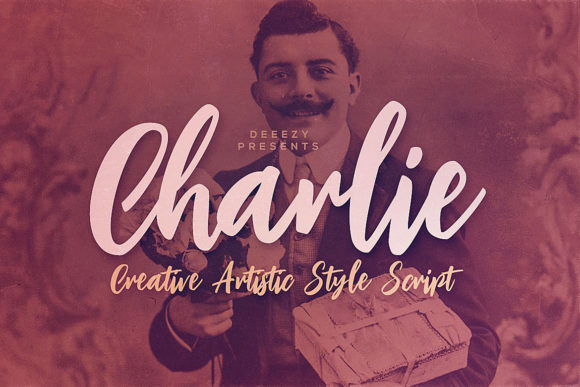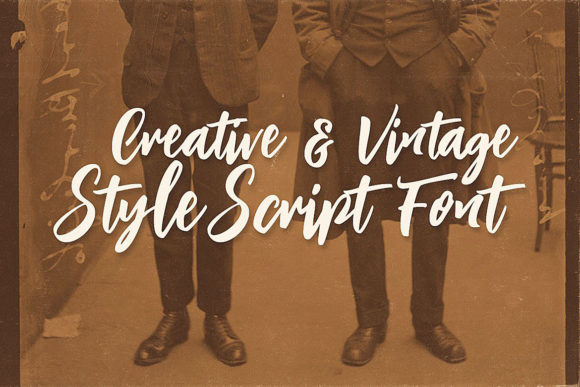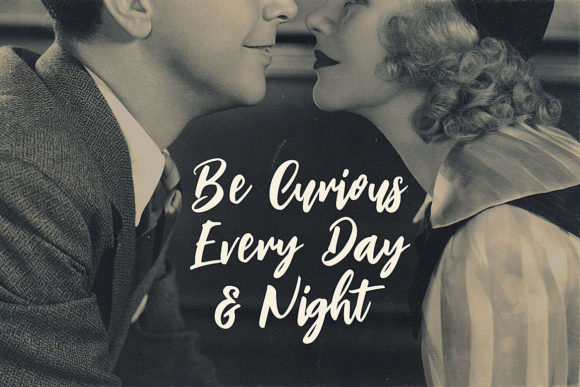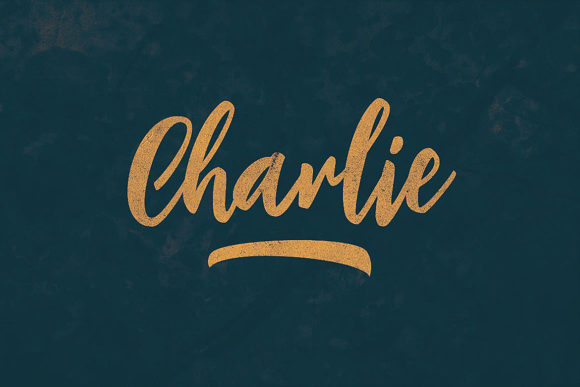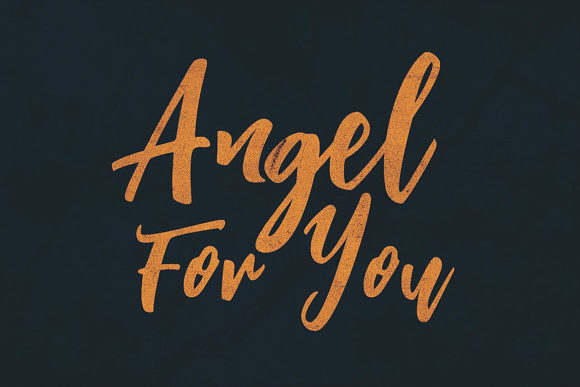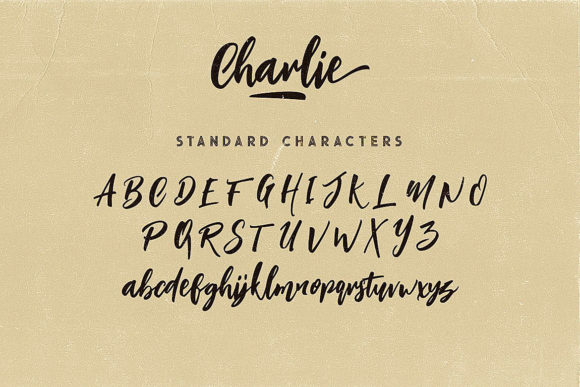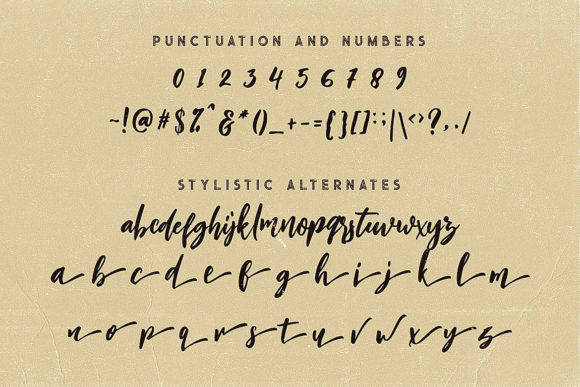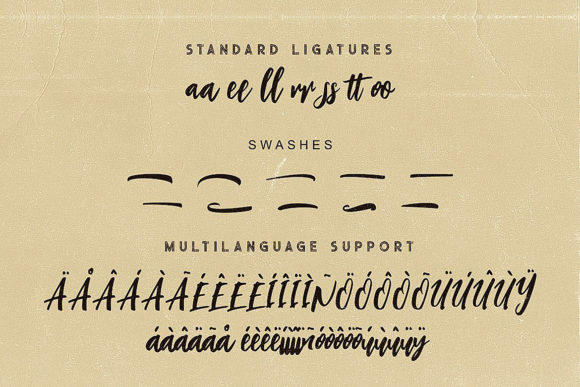
HomeScript FontsCharlie Font Script Fonts Charlie Font FacebookXPinterestWhatsApp Charlie Font Poster 2 Charlie Font Poster 3 Charlie Font Poster 4 Charlie Font Poster 5 Charlie Font Poster 6 Charlie Font Poster 7 Charlie Font Poster 8 About Charlie Font Artistic and handwritten, Charlie will effortlessly add a splash of authenticity to your next design project. DOWNLOAD NOW People also explored Drix 78 Font Leftover Crayon Drak Graffiti Font Silent Sunshine Font Ironbridge Laskar Font Justine Garden Font Love You Angel Font Cheesy Honey Font 303 0 TagsCharlie Font Previous articleWarmheart FontNext articleFositif Font LEAVE A REPLY Cancel reply Comment: Please enter your comment! Name:* Please enter your name here Email:* You have entered an incorrect email address! Please enter your email address here Website: Save my name, email, and website in this browser for the next time I comment. Personal Use Free Masker Area Personal Use Free Read more about this font JVNE Smoothdron Personal Use Free Read more about this font Sunflower Personal Use Free Read more about this font Hanifah Personal Use Free Read more about this font BLOG Fonts That Capture the Spirit of New York City New York City is more than just a place—it’s an experience, a rhythm, a visual language... Free vs Paid Fonts: Why Investing in Premium Fonts Is Worth It To increase your work productivity, choose the most readable fonts. How to Install and Use Fonts on Windows, macOS, and Web Projects